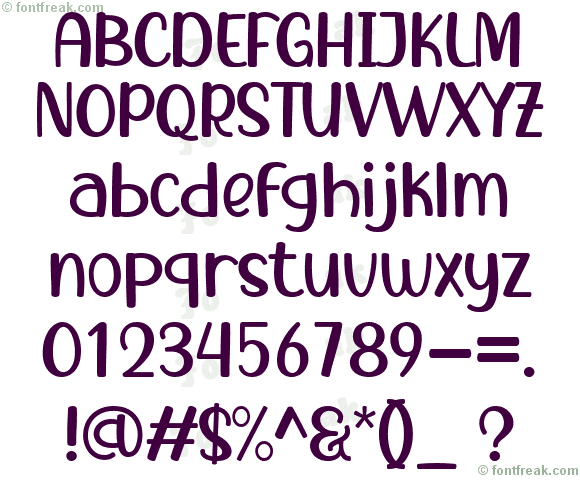
Boba Panda
Boba Panda — Character Map
About Boba Panda
Boba Panda, designed by Situjuh Nazara, is a charming display font that exudes a playful and whimsical character. This typeface falls into the category of decorative fonts, making it an excellent choice for projects that require a lighthearted touch. The font features rounded edges and a consistent stroke weight, which contributes to its friendly and approachable appearance. Its letterforms are well-spaced, ensuring readability while retaining a fun aesthetic, making it perfect for a variety of design applications.
One of the standout features of Boba Panda is its unique personality, which can elevate your creative projects. It works wonderfully for children's book covers, where its playful nature can attract young readers. Additionally, this font is ideal for restaurant menus, especially in establishments that focus on casual dining or have a family-friendly theme. Event flyers and promotional materials can benefit from Boba Panda's engaging style, making announcements stand out in a crowded visual landscape. Furthermore, for social media graphics, this font can add a delightful flair that resonates with audiences, especially on platforms targeting a younger demographic.
The target audience for Boba Panda includes graphic designers, small business owners, and content creators who are looking to inject a sense of fun and creativity into their work. Whether you're designing a logo, crafting a unique brand identity, or simply looking to add a touch of whimsy to your projects, this font is a versatile asset.